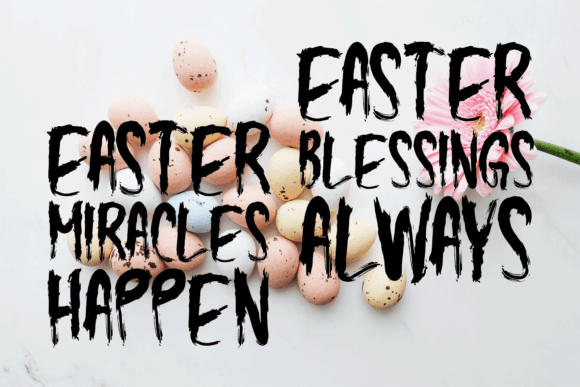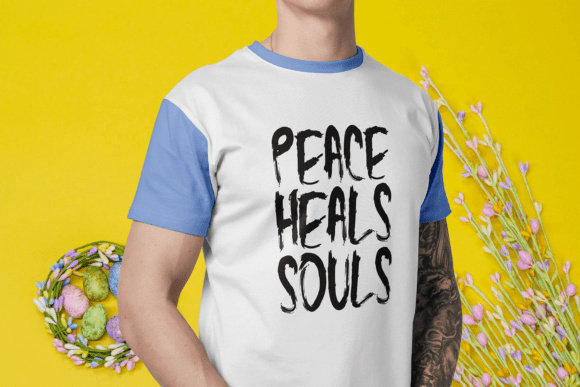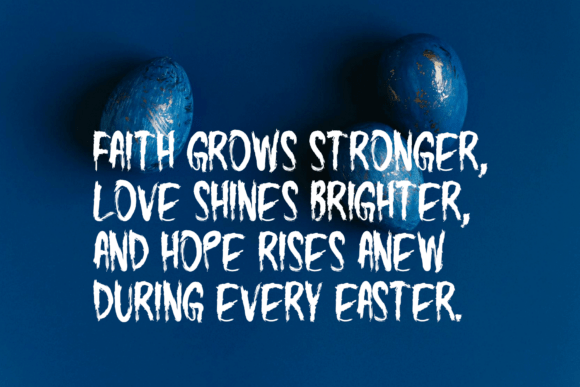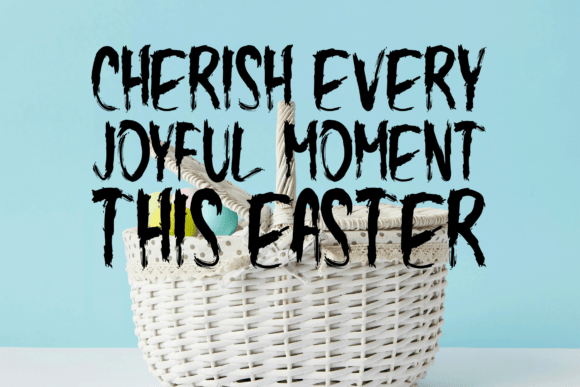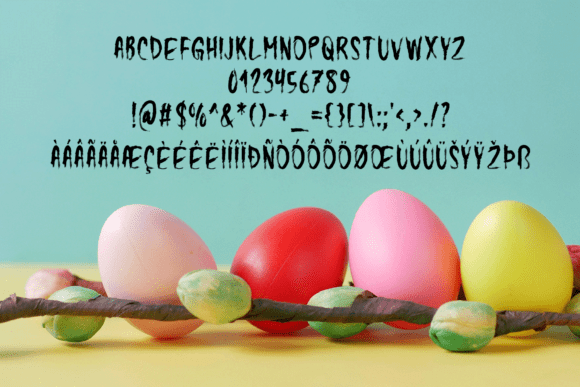
Introducing Angelic Easter Font: Elevate Your Designs with Elegance and Creativity
Are you looking for a font that can add a touch of sophistication and artistic flair to your designs? Look no further than the Angelic Easter Font. This beautifully handcrafted brush display font is perfect for designers and crafters who want to create stunning visual content that stands out from the crowd. In this article, we’ll explore the features and benefits of the Angelic Easter Font and how it can elevate your designs to the next level.
A Beautifully Handcrafted Brush Display Font
The Angelic Easter Font is a unique and elegant font that is handcrafted with love and care. Its brush display style gives it a personal and artistic touch that is perfect for a variety of design projects. The font’s beautiful strokes and intricate details make it a standout choice for designers who want to add a touch of sophistication to their work.
The Angelic Easter Font is versatile and can be used for a wide range of design projects. Whether you’re designing stationery, logos, t-shirts, or print materials like posters and flyers, this font adds a unique artistic flair that will make your designs stand out. It’s also perfect for digital applications, including website headers, music covers, image sliders, and photo frames.
Key Features of the Angelic Easter Font
- Handcrafted with love and care: Each letter is carefully crafted to ensure a personal and artistic touch.
- Brush display style: Gives the font a unique and elegant look that’s perfect for a variety of design projects.
- Perfect for digital and print applications: Use it for website headers, music covers, image sliders, photo frames, and more.
Benefits of Using the Angelic Easter Font
So why choose the Angelic Easter Font for your designs? Here are just a few benefits of using this beautiful font:
- Adds a touch of elegance and sophistication: Elevate your designs with a font that’s both stylish and artistic.
- Unique and creative: Stand out from the crowd with a font that’s truly one-of-a-kind.
- Versatile: Use it for a wide range of design projects, from print materials to digital applications.
Tips for Using the Angelic Easter Font
Here are a few tips for getting the most out of the Angelic Easter Font:
- Use it as a headline font: The Angelic Easter Font is perfect for headlines and titles – use it to add a touch of elegance and sophistication to your designs.
- Experiment with different colors: The font looks great in a variety of colors – experiment with different shades and combinations to find the perfect look for your design.
- Pair it with other fonts: The Angelic Easter Font pairs well with other fonts – try combining it with a sans-serif font for a stylish and modern look.
The Angelic Easter Font is a beautifully handcrafted brush display font that adds a touch of elegance and creativity to any project. With its unique and artistic style, it’s perfect for designers and crafters who want to create stunning visual content that stands out from the crowd. Whether you’re designing stationery, logos, t-shirts, or print materials, or creating digital applications like website headers and music covers, this font is sure to elevate your designs to the next level.